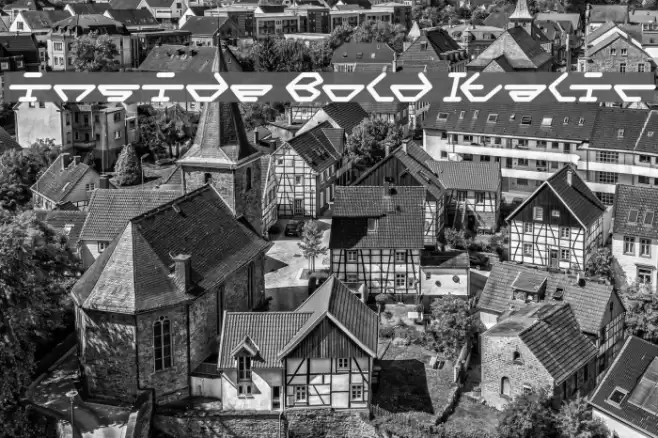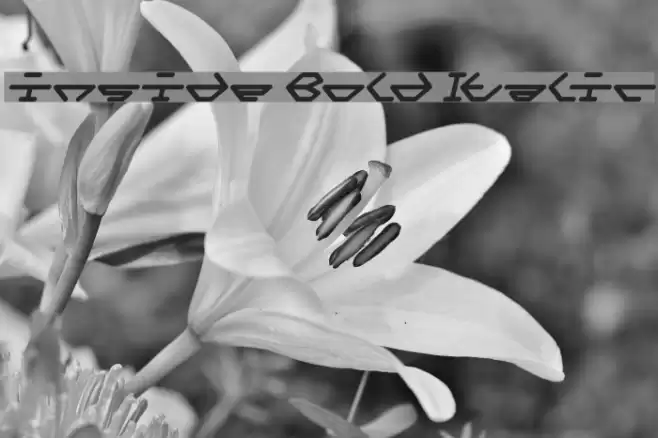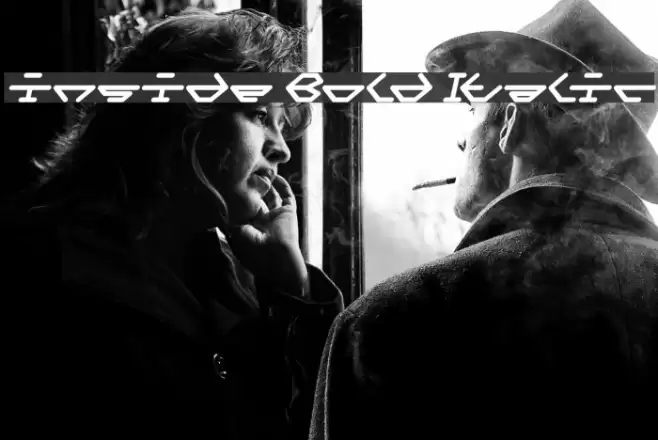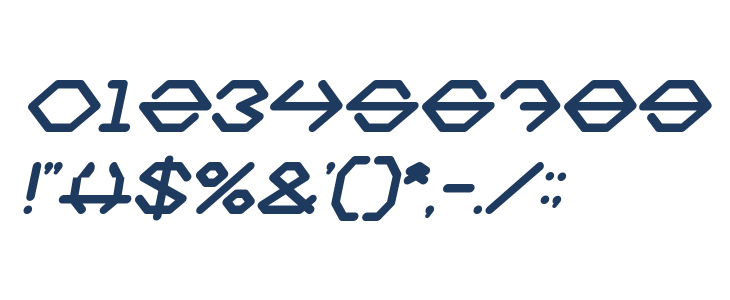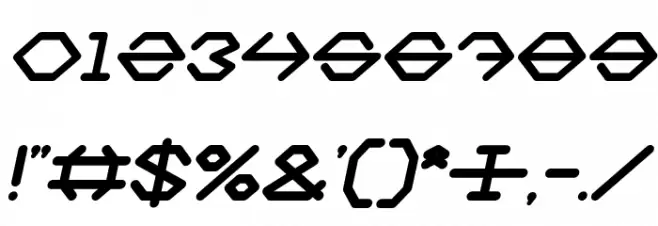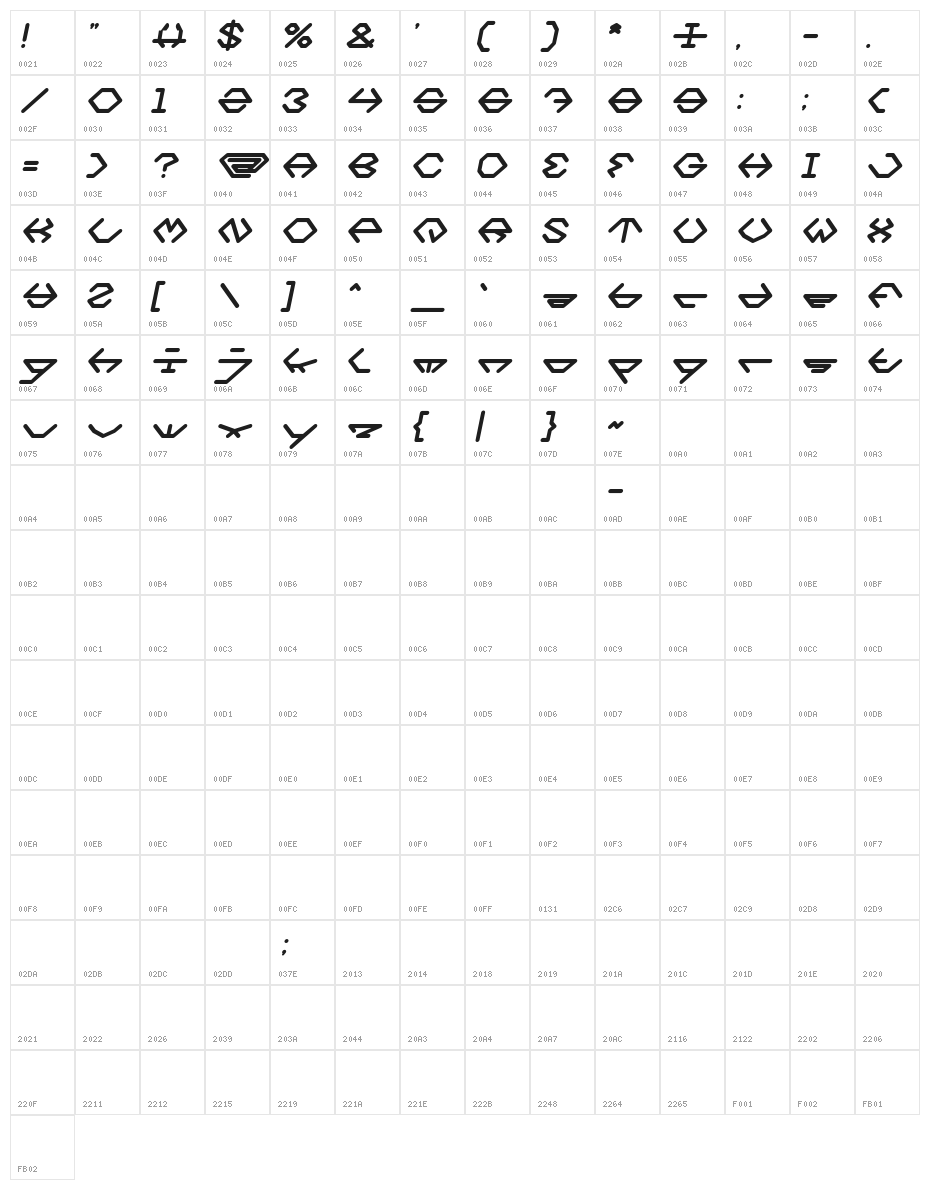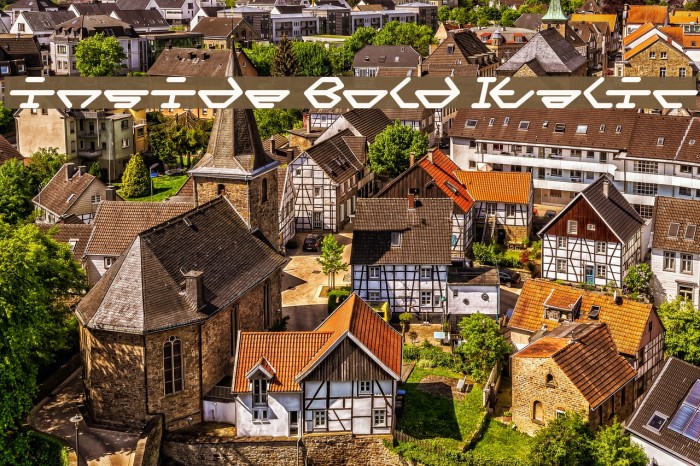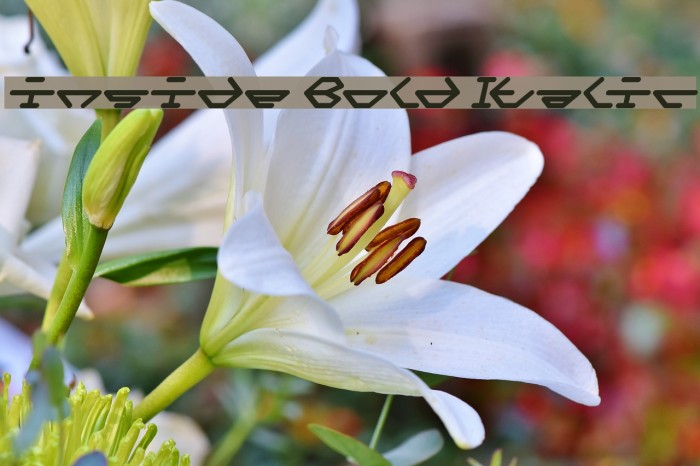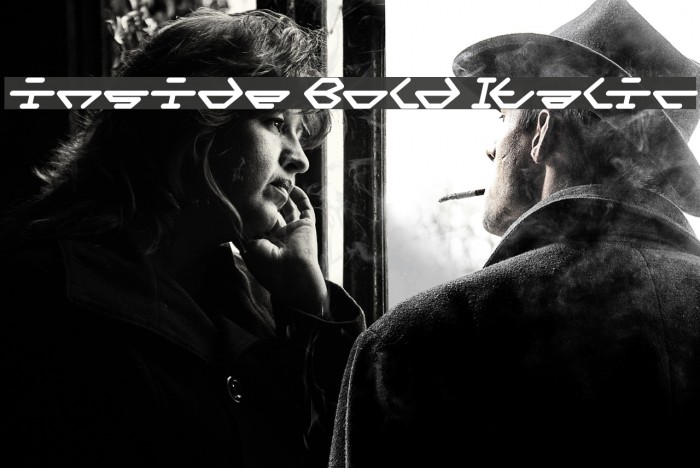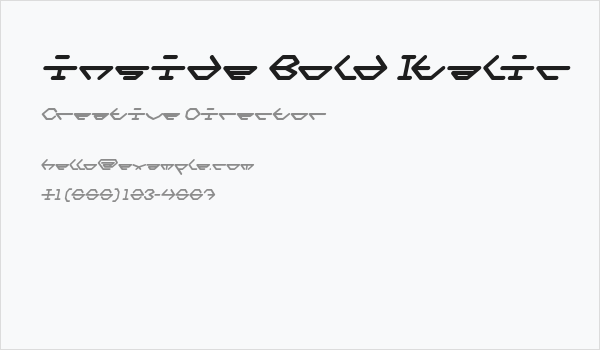
inside Bold Italic Font
inside Bold Italic Description
This font features a bold and italicized style with a futuristic and geometric design. The characters are constructed with angular lines and sharp edges, giving them a distinct and modern appearance. The uppercase and lowercase letters maintain a consistent style, with unique shapes that make each character easily distinguishable. The numbers and special characters follow the same design principles, ensuring a cohesive look across all elements. This font's boldness and angularity make it stand out, while the italic slant adds a dynamic touch.
A bold, italicized font with a futuristic, geometric design from Uncategorized fonts.
- Proposed Projects: Ideal for sci-fi themed projects, technology branding, video game titles, and modern posters.
- Overall Style: Futuristic